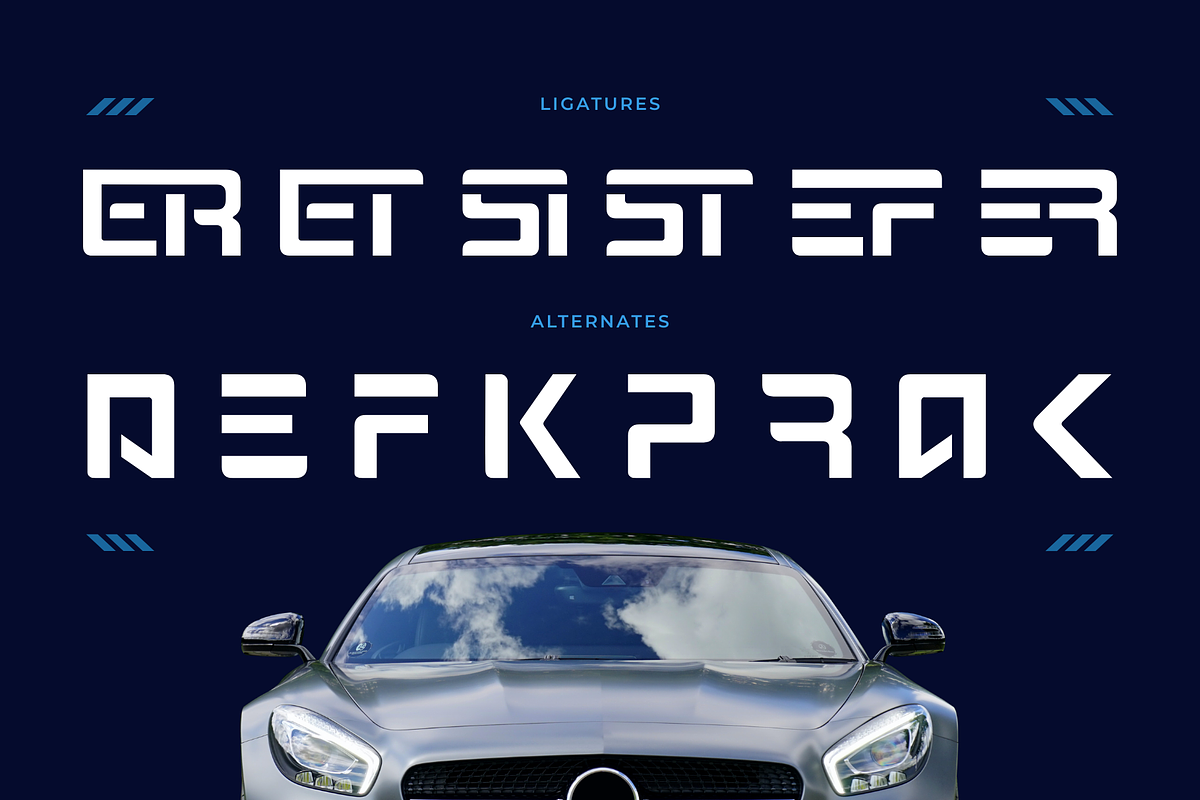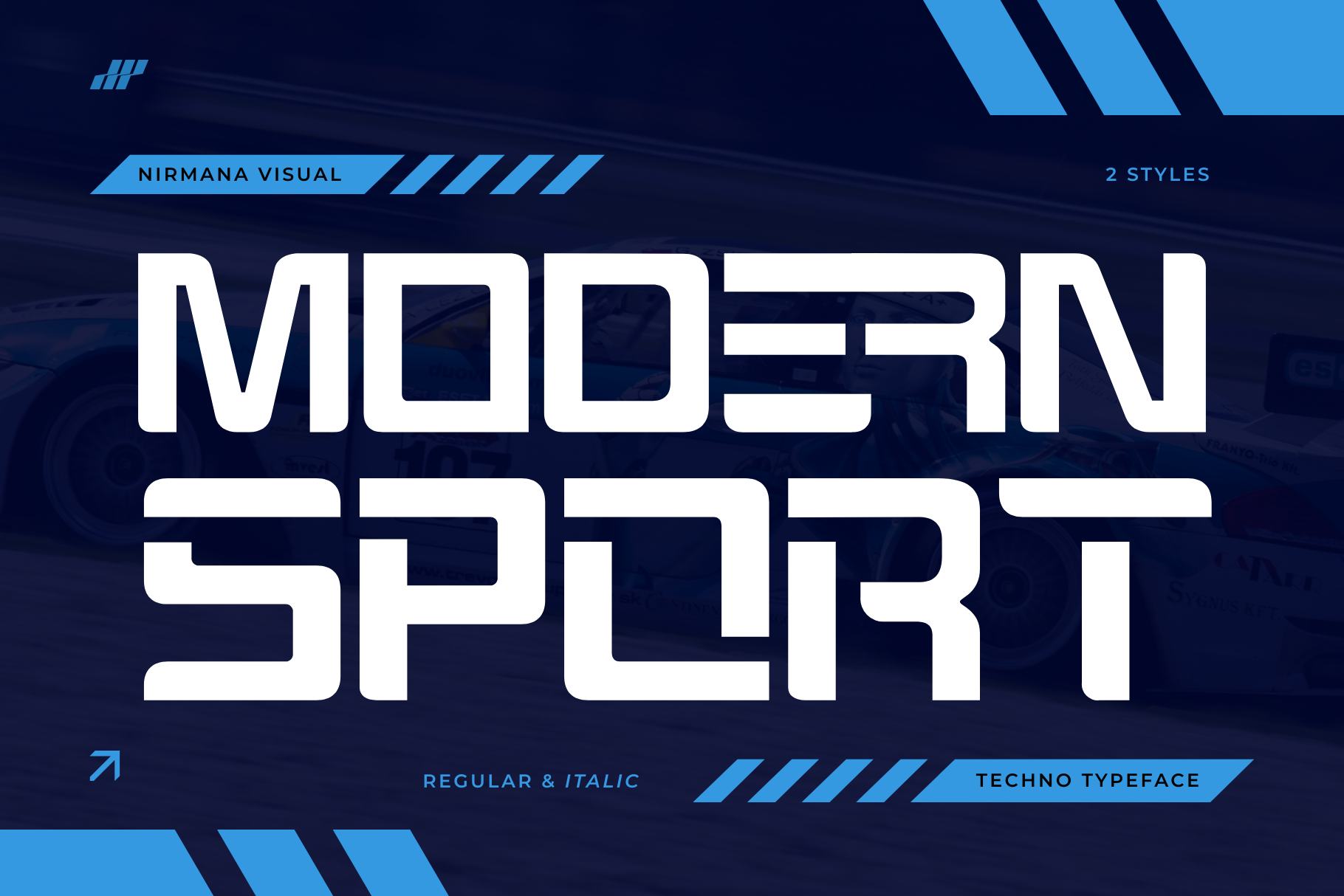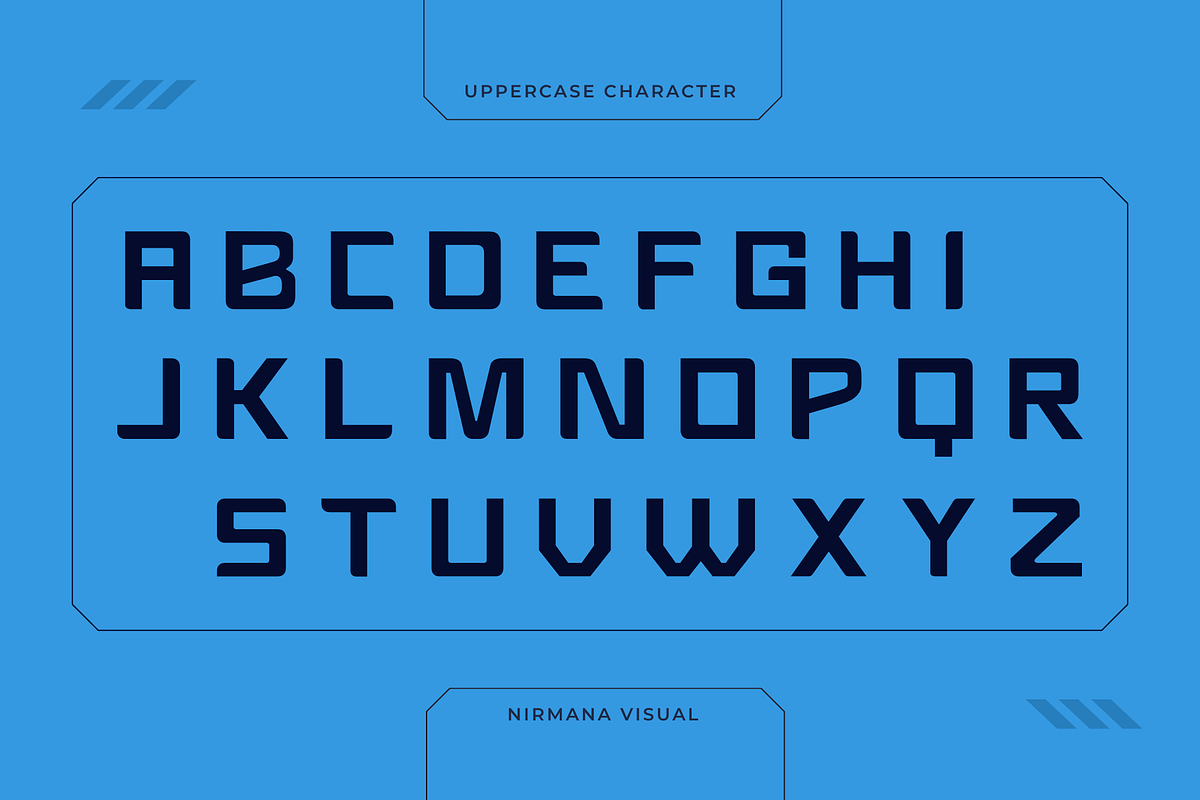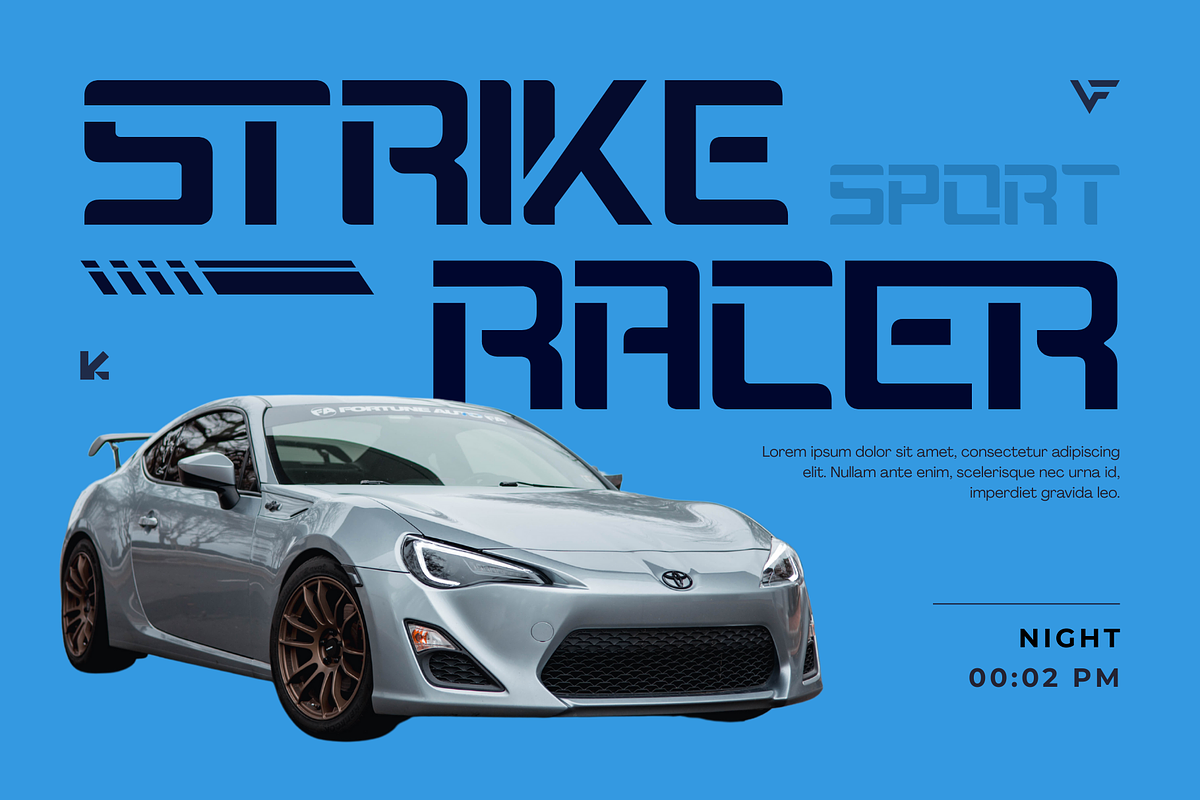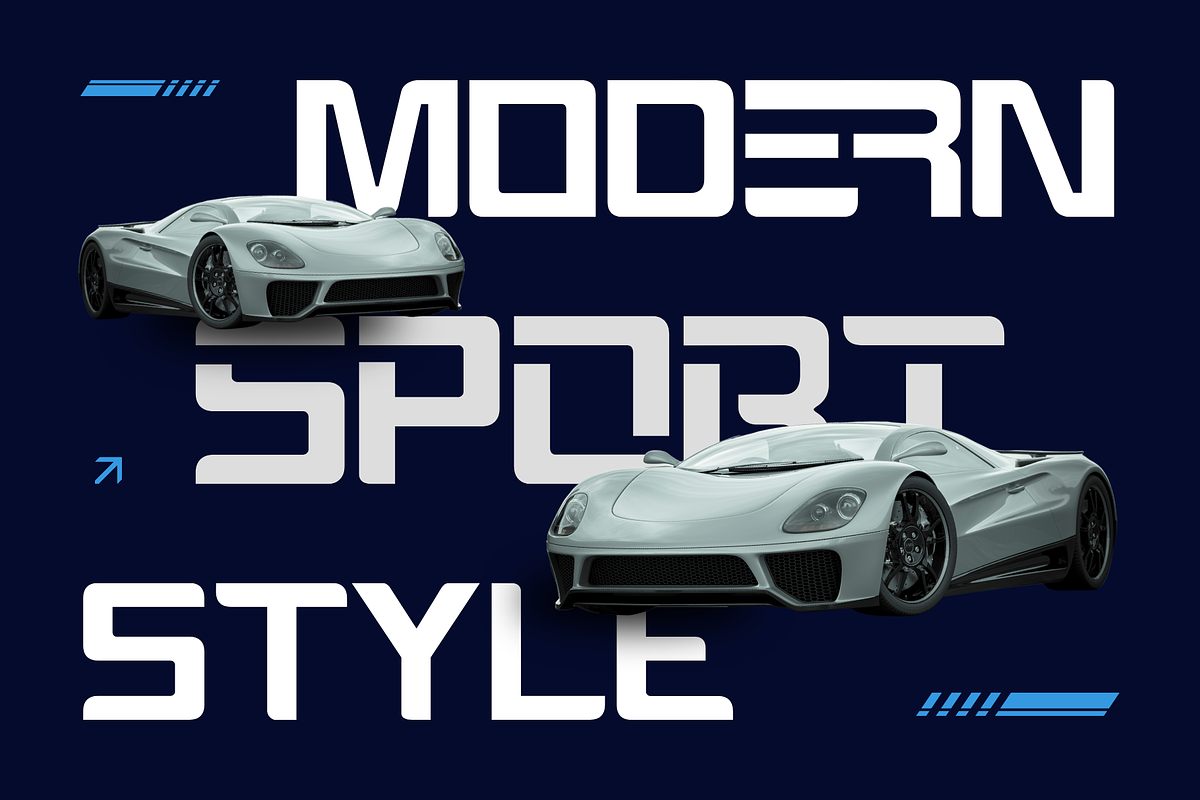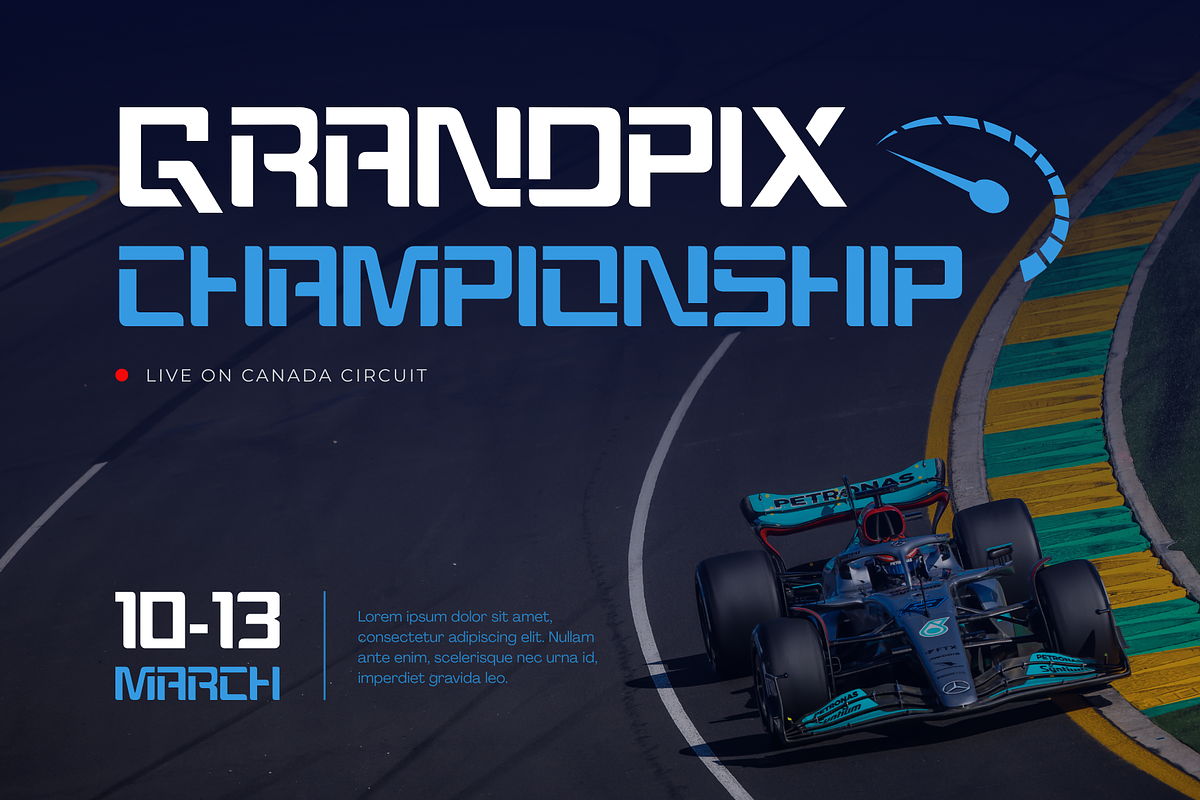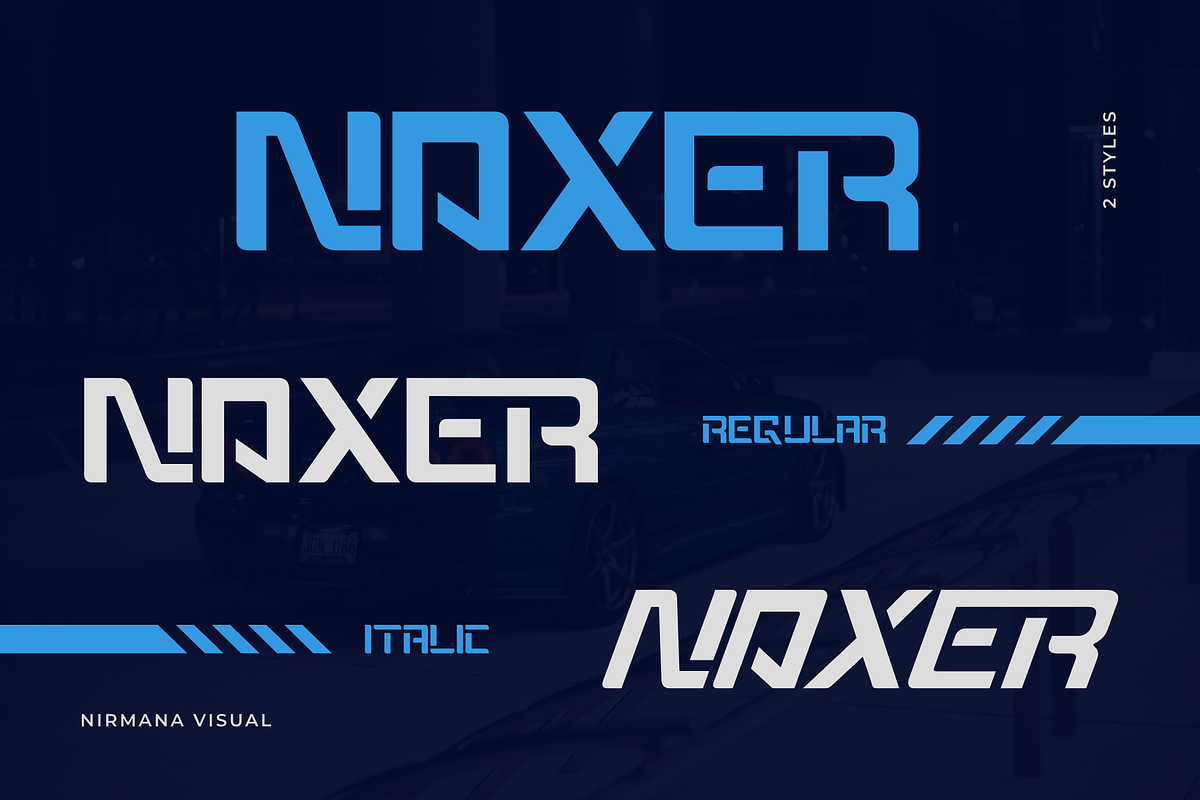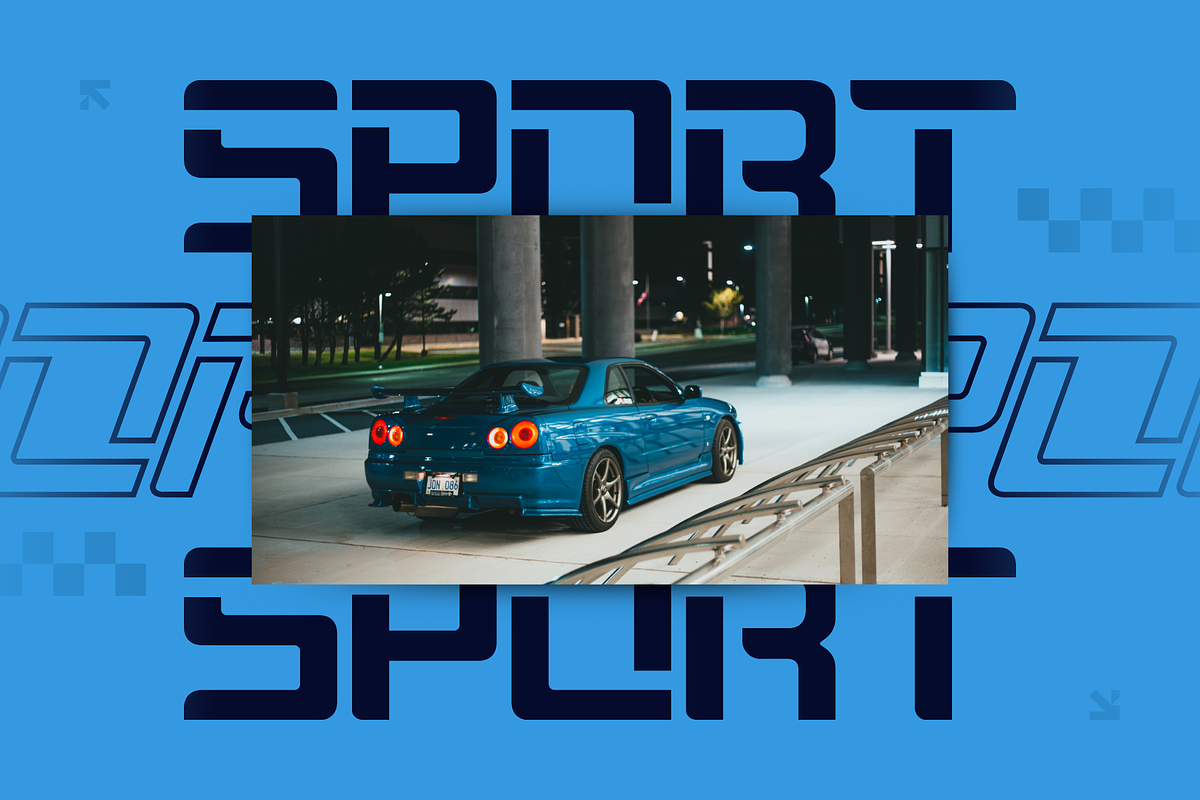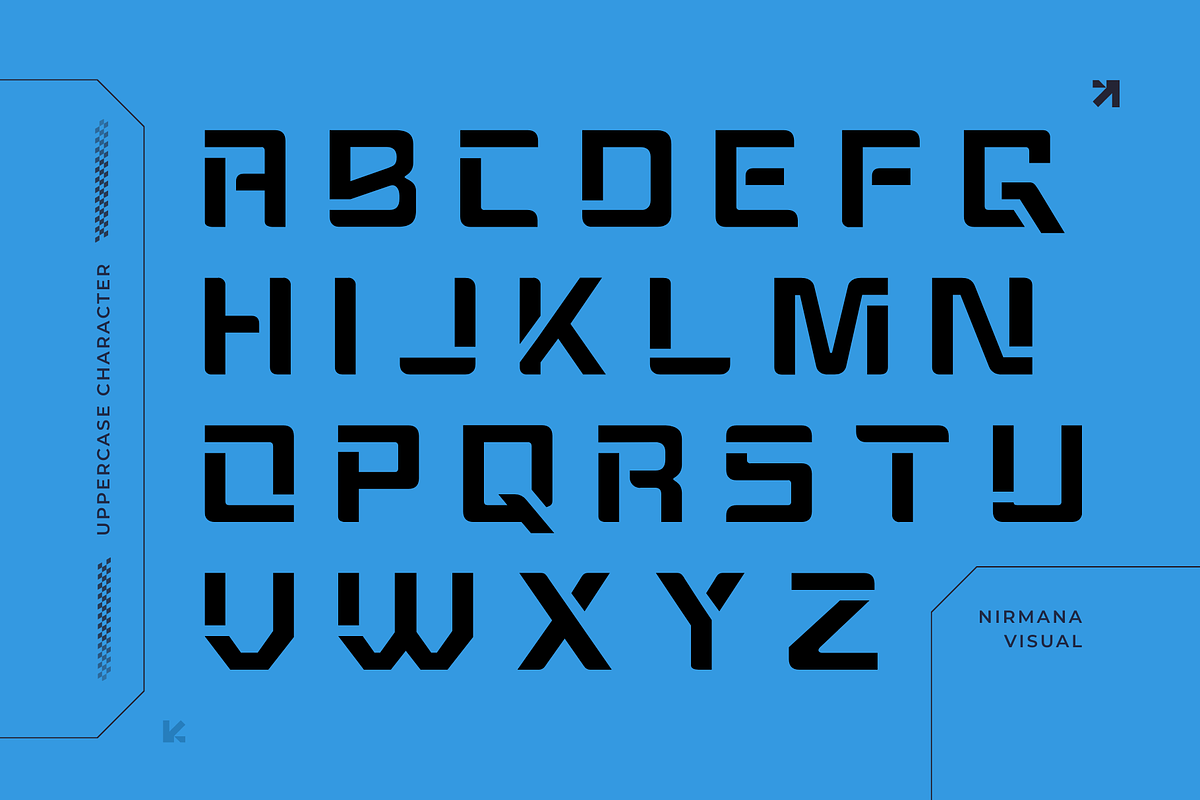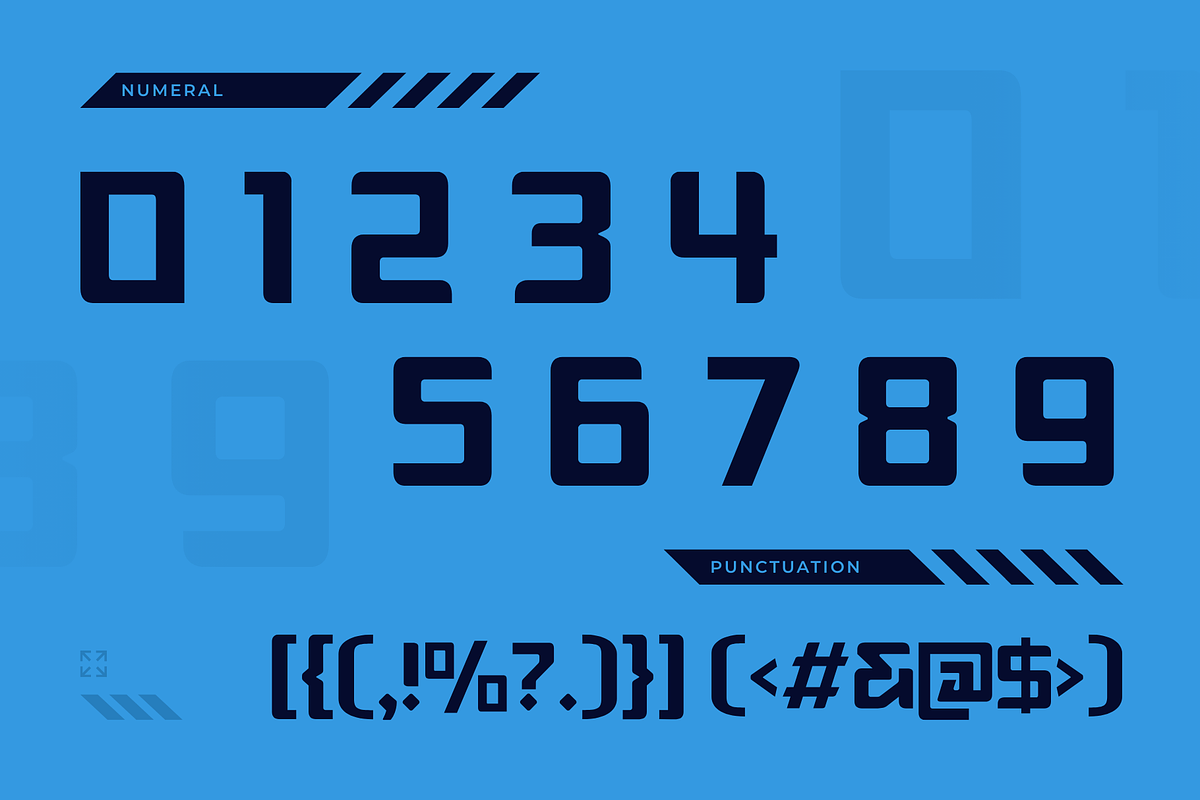
Modern Sport - Techno Logo Font
Modern Sport is a dynamic typeface with a special techno concept, designed for high-impact visuals. It features both regular and italic styles, offering versatility and boldness for any creative need. Perfect for logos and branding, this font combines futuristic edges with athletic energy, making it ideal for sports, gaming, and tech-related designs. Its sleek form ensures your brand stands out with power and precision.